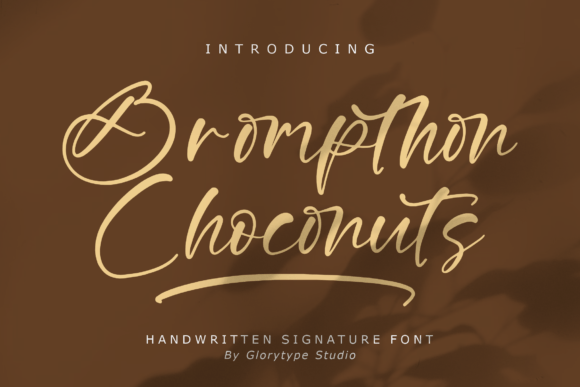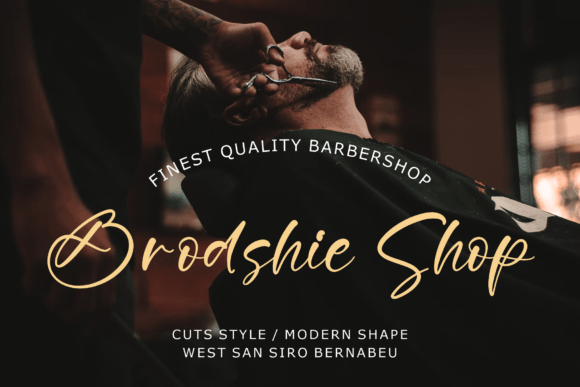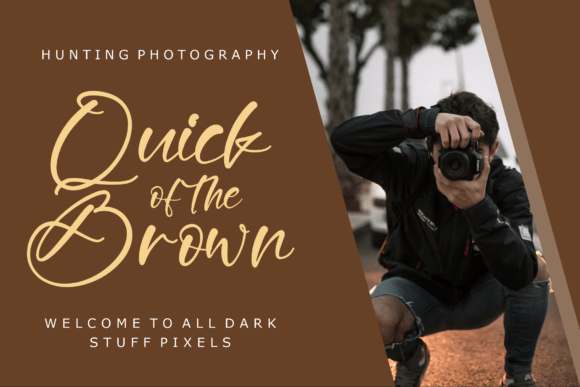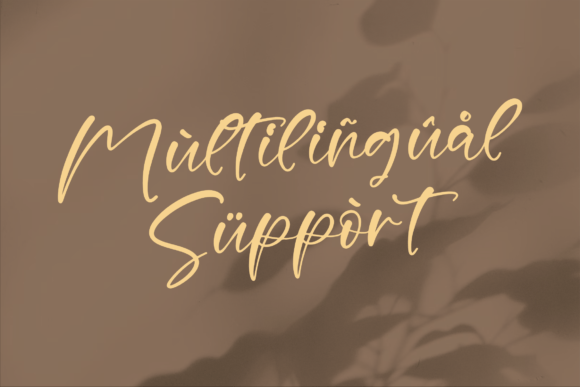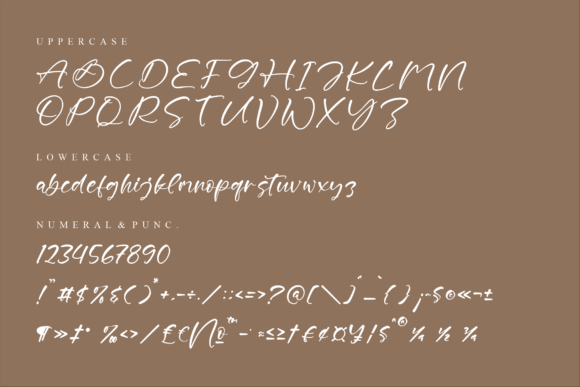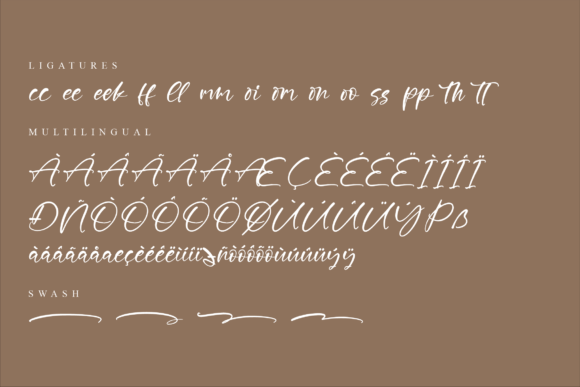
About Brompthon Choconuts Font:
Brompthon Choconuts Font is a dazzling script typeface designed to bring elegance and flair to any creative project. Meticulously crafted with intricate details, this font captures attention and adds sophistication wherever it is applied. Its refined strokes and fluid curves create a harmonious balance, making it ideal for a wide range of uses.
Whether you’re working on branding, invitations, packaging, or social media graphics, Brompthon Choconuts will elevate your designs with its graceful style. The font’s versatility makes it a valuable addition to any font library, ready to enhance everything from logos to posters with a polished, artistic touch.
One of the standout features of Brompthon Choconuts Font is its PUA encoding. This means you can easily access all glyphs, ligatures, and swashes, allowing for creative freedom and customization in your projects. You can effortlessly add stylistic alternates or decorative flourishes to personalize your text.
In summary, Brompthon ChoconutsFont is perfect for designers looking for a detailed, elegant scriptfont that offers both beauty and functionality. Add this font to your collection to bring a unique charm and elevated aesthetic to all your creative endeavors.